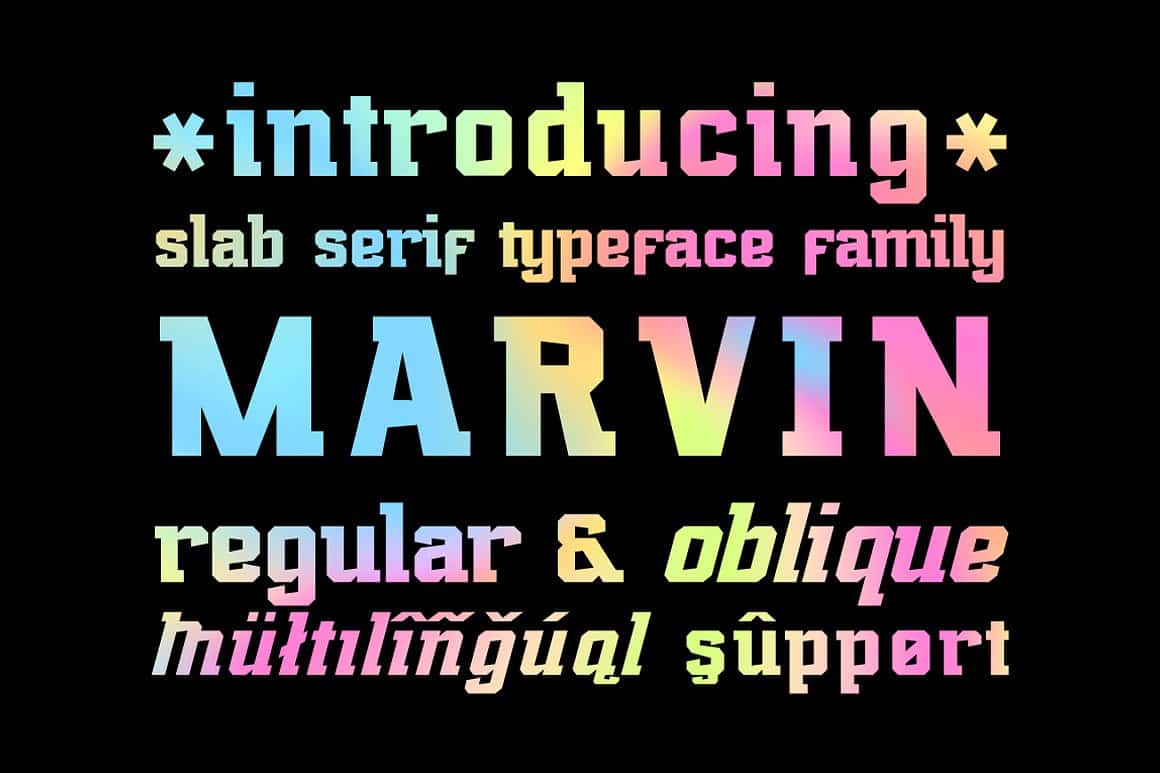
Add a distinctive flair to your designs with Marvin Regular Oblique, a trendy typeface that perfectly embodies the spirit of creativity and innovation.
Marvin Regular Oblique - A Classic Twist on Modern Typography
Stunning and visually enjoyable, Marvin Regular Oblique is a beautiful harmony of vintage charm and modern aesthetic. This font is a bold display typeface that can add a unique touch to your art projects, stationery designs, banner creations, and more.
Why Choose Marvin Regular Oblique?
When choosing a font for your designs, it’s essential to understand their impact. Fonts are not just a medium for communication; they set the mood, evoke emotions, and reflect the personality of your work. Here are some key reasons why Marvin Regular Oblique should be your go-to choice:
Versatility: Marvin Regular Oblique’s design is flexible, making it suitable for a wide range of creative projects, from logos to posters and beyond.
Distinctive Style: With its unique twist on regular typography, this font stands out in any creative ensemble.
Ease of Use: Despite its complicated name, Marvin Regular Oblique is surprisingly easy to use and adjust to your specific design needs.
Using Marvin Regular Oblique
Marvin Regular Oblique’s timeless style makes it perfect for various mediums. Here are some instances where this font shines:
Logos and Branding: Marvin Regular Oblique is perfect for businesses that want to convey a modern yet timeless persona.
Posters and Flyers: Being a bold typeface, Marvin Regular Oblique is great for headers and titles and can make any text pop.
Digital Media: For digital creatives, this font can provide a fresh and unique twist.
Remember, the right font can significantly enhance your design’s overall appeal, and Marvin Regular Oblique is just the tool to elevate your creations.